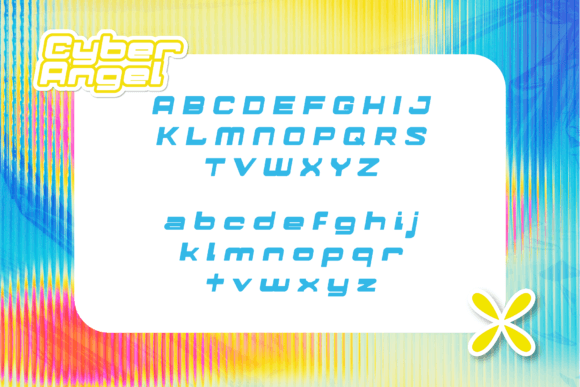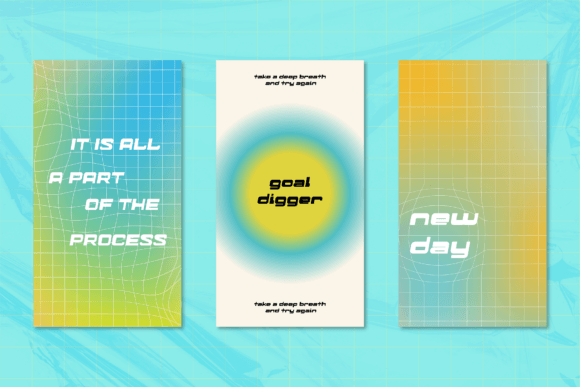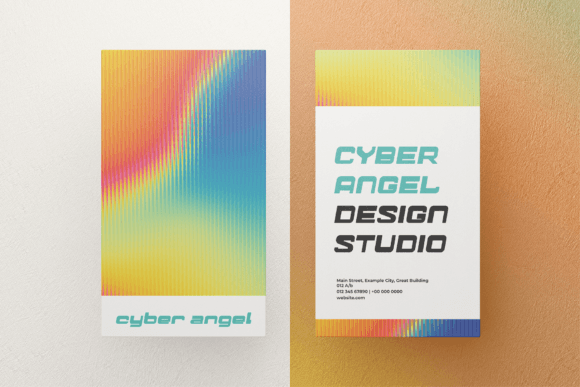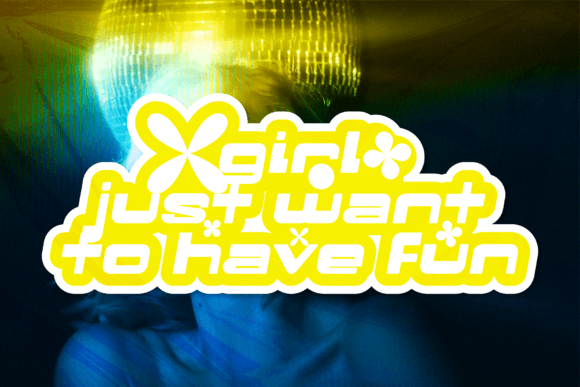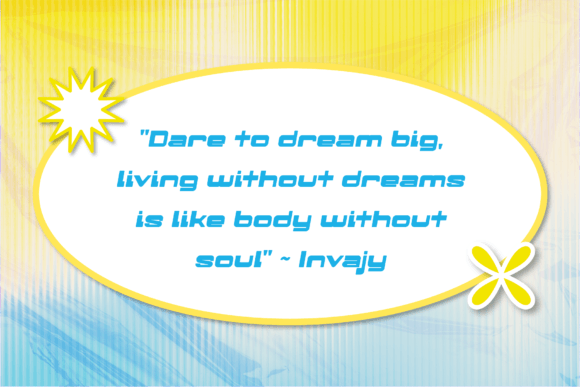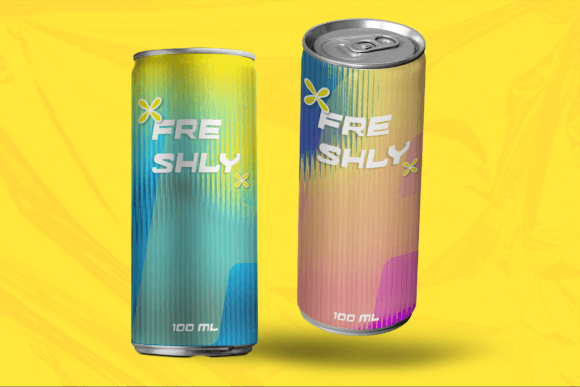
Introduction to Cyber Angel Font Font
Fonts play a crucial role in design, and the Cyber Angel Font font is a typeface that brings both character and versatility to any project. Whether you’re working on a branding project, a website, or a print design, the Cyber Angel Font font offers a unique style that can elevate your work.
Cyber Angel is a powerful and futuristic typeface that embodies the cutting-edge spirit of the 2000s.
Its sleek lines and angular curves evoke the speed and energy of the digital age, while its bold, sans-serif letters communicate confidence and strength This font is perfect for designers looking to add a touch of sci-fi flair to their projects, whether itβs a website, a logo, or a product label.
Key Features of Cyber Angel Font Font
Why Choose Cyber Angel Font Font?
The Cyber Angel Font font is more than just a typeface β it’s a design tool that helps you communicate your message with style and clarity. Its unique character set and versatile design make it suitable for a wide range of applications, from elegant invitations to bold headlines.
With its carefully crafted letterforms and balanced proportions, the Cyber Angel Font font ensures readability and visual appeal across all mediums.
What makes Cyber Angel Font font special?
The Cyber Angel Font font stands out with its unique design, exceptional readability, and versatility across various design applications.